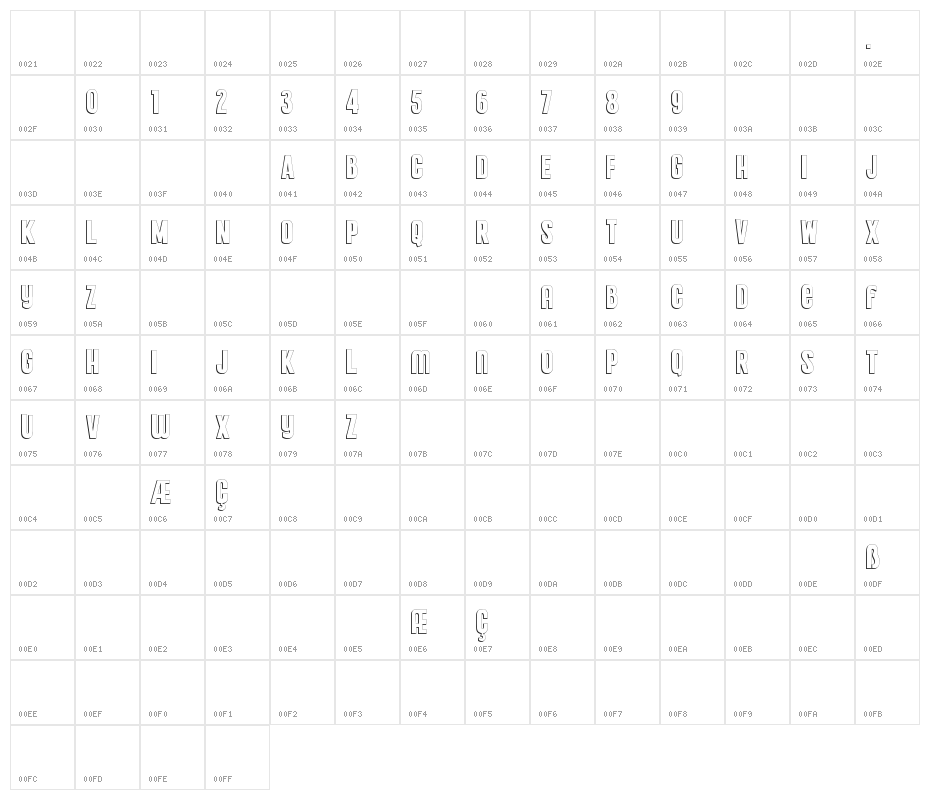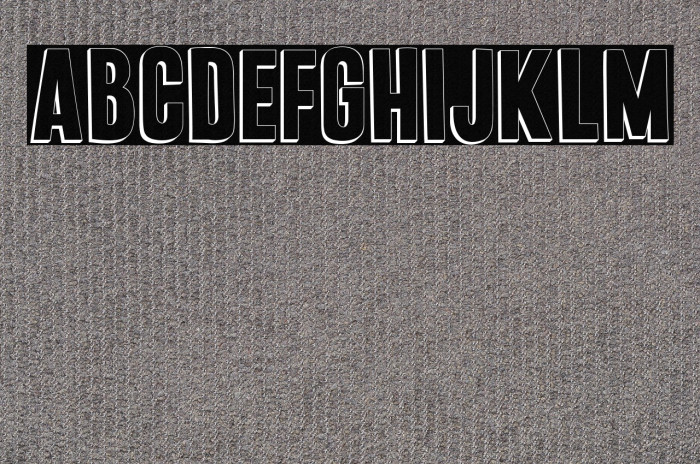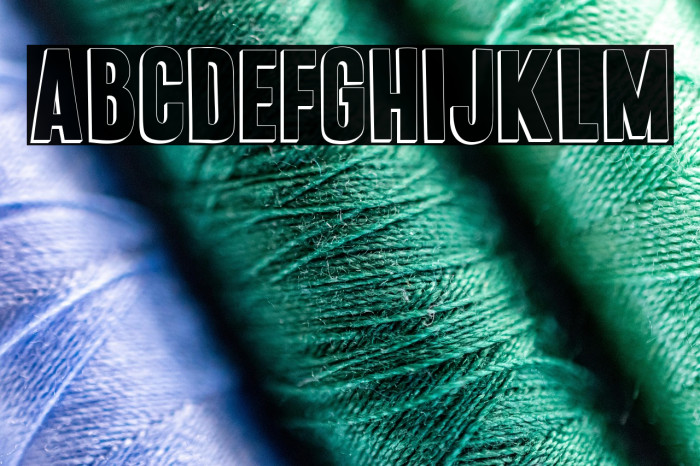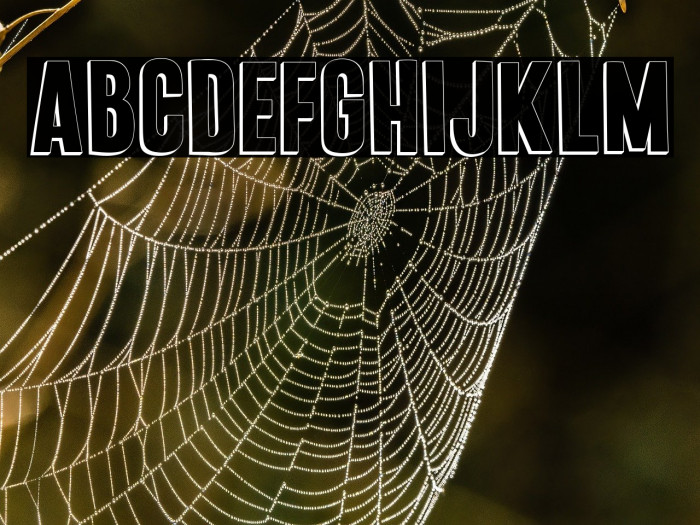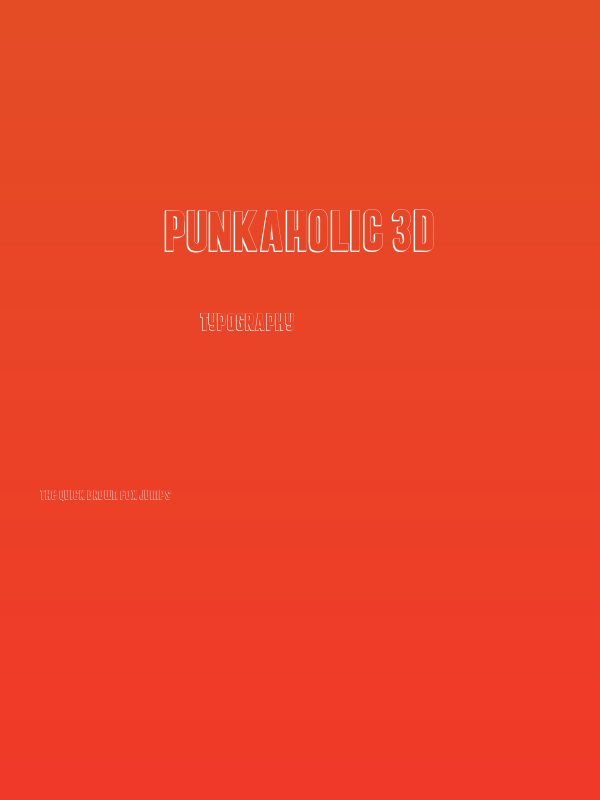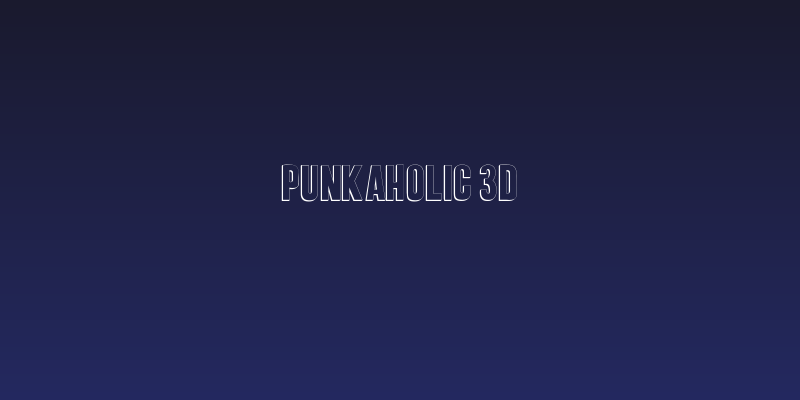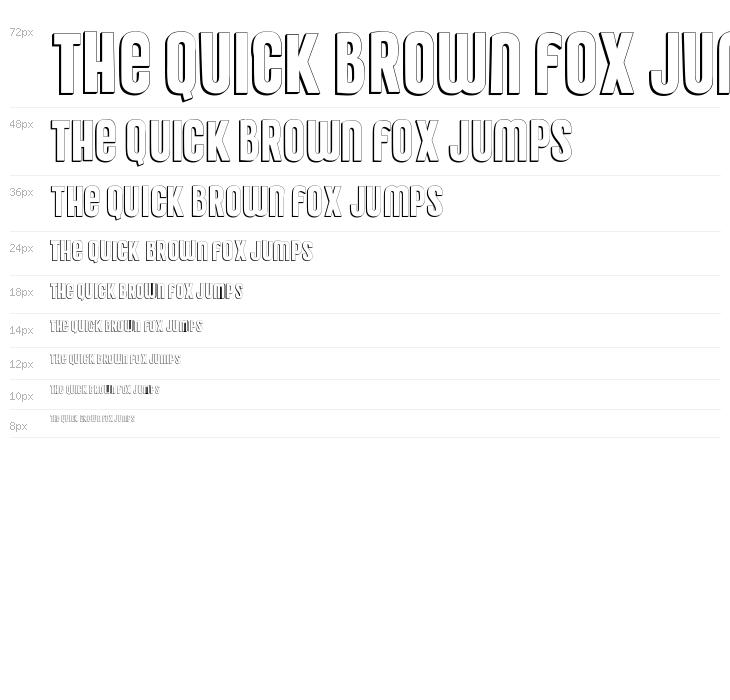
Punkaholic 3D Font
Punkaholic 3D Description
This font features a bold, three-dimensional style that gives each character a striking, impactful appearance. The letters are uppercase and exhibit a strong, geometric structure with clean lines and sharp edges. The 3D effect is achieved through a shadow-like outline that adds depth and dimension, making the characters stand out prominently. This design is both modern and playful, suitable for projects that require a bold statement. The numbers follow the same style, maintaining consistency across the character set.
| Proposed Projects | Ideal for posters, headlines, branding, and any design that needs a bold, eye-catching typeface. |